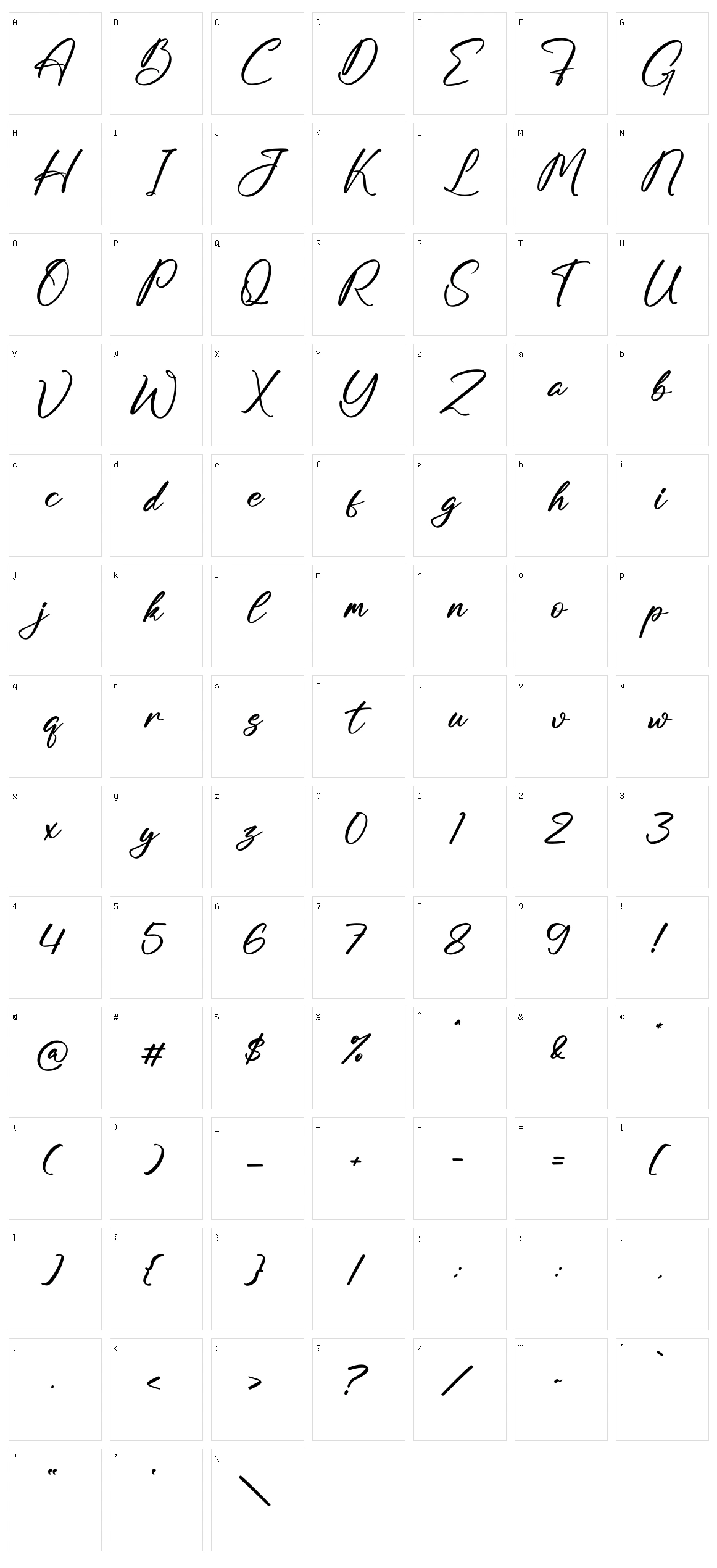
The free font Aurttley Graffin is carefully designed by Letterena Studios, showcasing a thoughtful balance of creativity and usability and falls under the Script font style. When you download the ZIP file, it contains only 61.58 KB of font files, making it lightweight and quick to download. Please review the license details below to understand permitted usage and distribution rights. If license information is not available, we recommend using this font for personal projects only or contacting the author directly for commercial usage permissions.